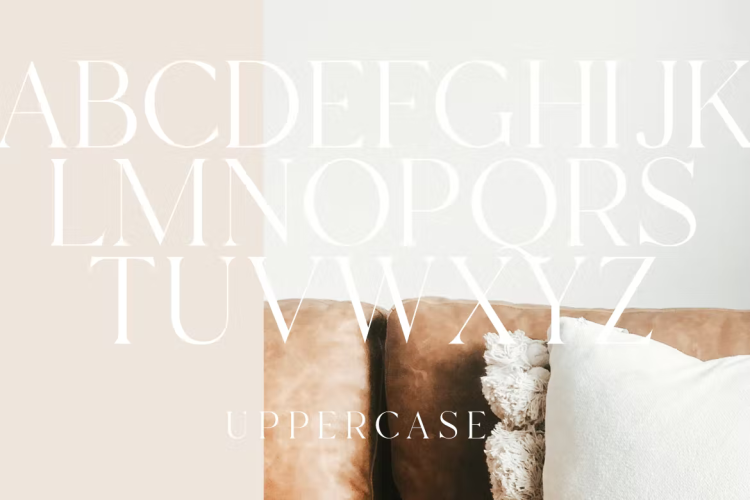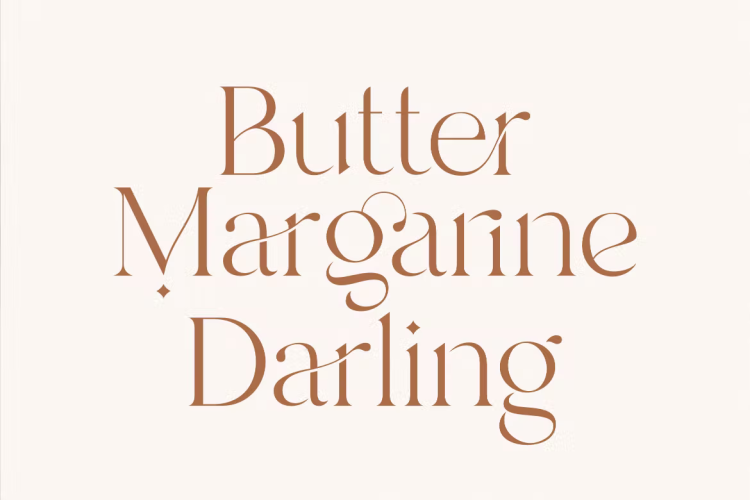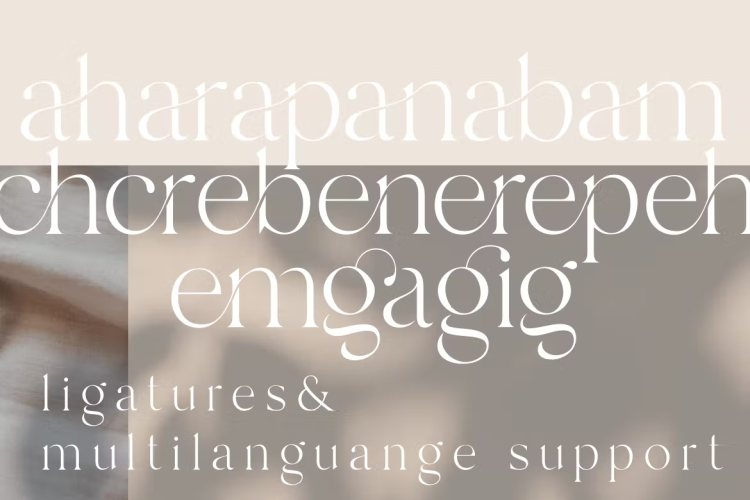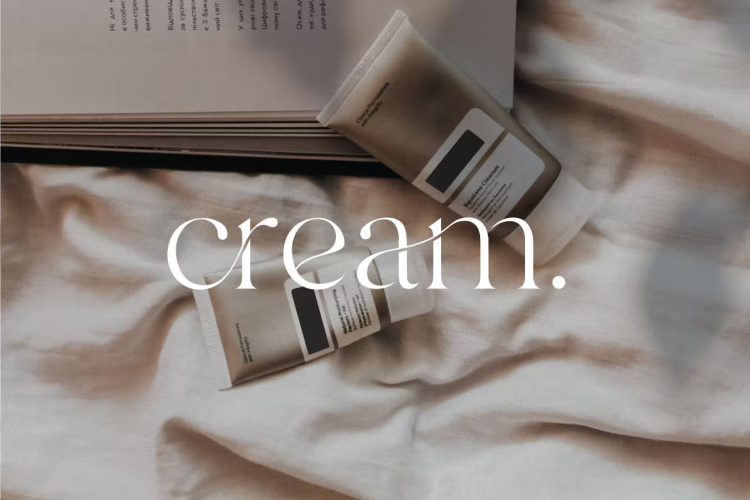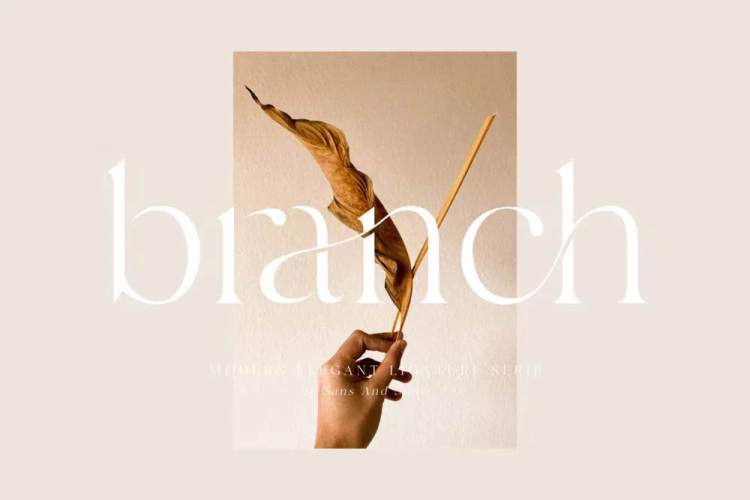
Branch Font
Branch Font Elegant Ligature Font by Sans and Sons introducing our new “Branch” Modern Ligature with Elegant Style this is perfect for branding, logos, invitation, mastheads, and more.
Branch Features :
*Multilanguange
Where Branch Font works best
Reports, white papers and book interiors hold the eye longer when the text face has real serifs; Branch Font keeps that rhythm without looking old-fashioned.
Food, spirits and cosmetics brands lean on serif wordmarks to suggest age and care. Branch Font gives that signal at wordmark size.
Set Branch Font for the body of an award or a diploma and keep the recipient name in a script; the pairing is what makes a document feel official.
What kind of work does Branch Font suit?
It sits in the Serif Fonts group and reads as branding, elegant, modern, serif. That makes it a candidate wherever those qualities help: headings, packaging, social graphics and brand work. Set it at the size you plan to use before deciding.